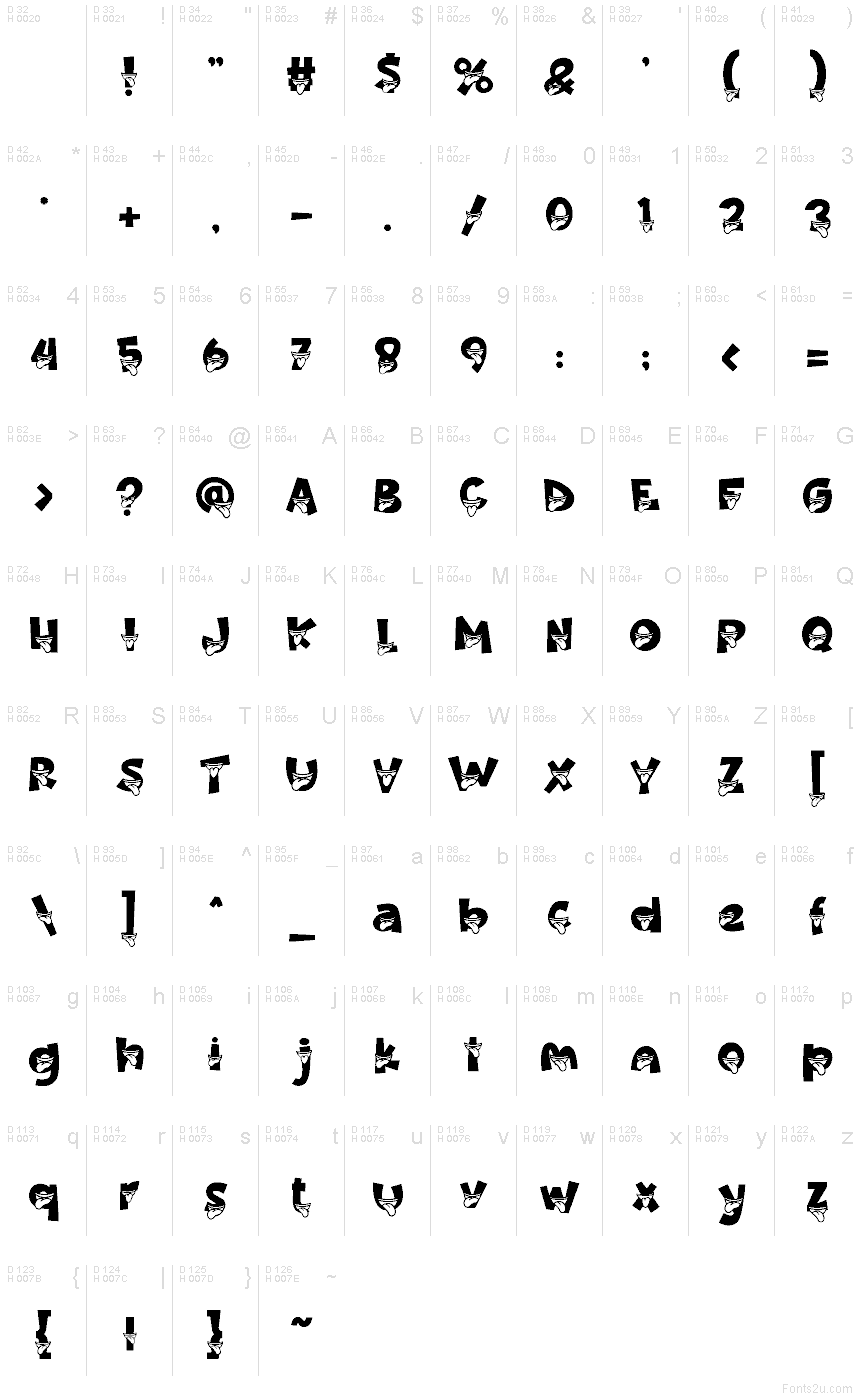
Night Clown Laugh
Night Clown Laugh font by PutraCetol Studio is a display decorative type with bold round characters. The letters were moderately condensed which leaves a lot in their boldness that many artists adore. Because the corners are fully-rounded, this font feels special in its aesthetic and ready to make statements.
In design works for publishing, advertising, or digital displays; Night Clown Laugh can be used almost anywhere. Some ideas include banners, social media posts, covers, headings, stickers, and typographic posters where each letter will truly standout.